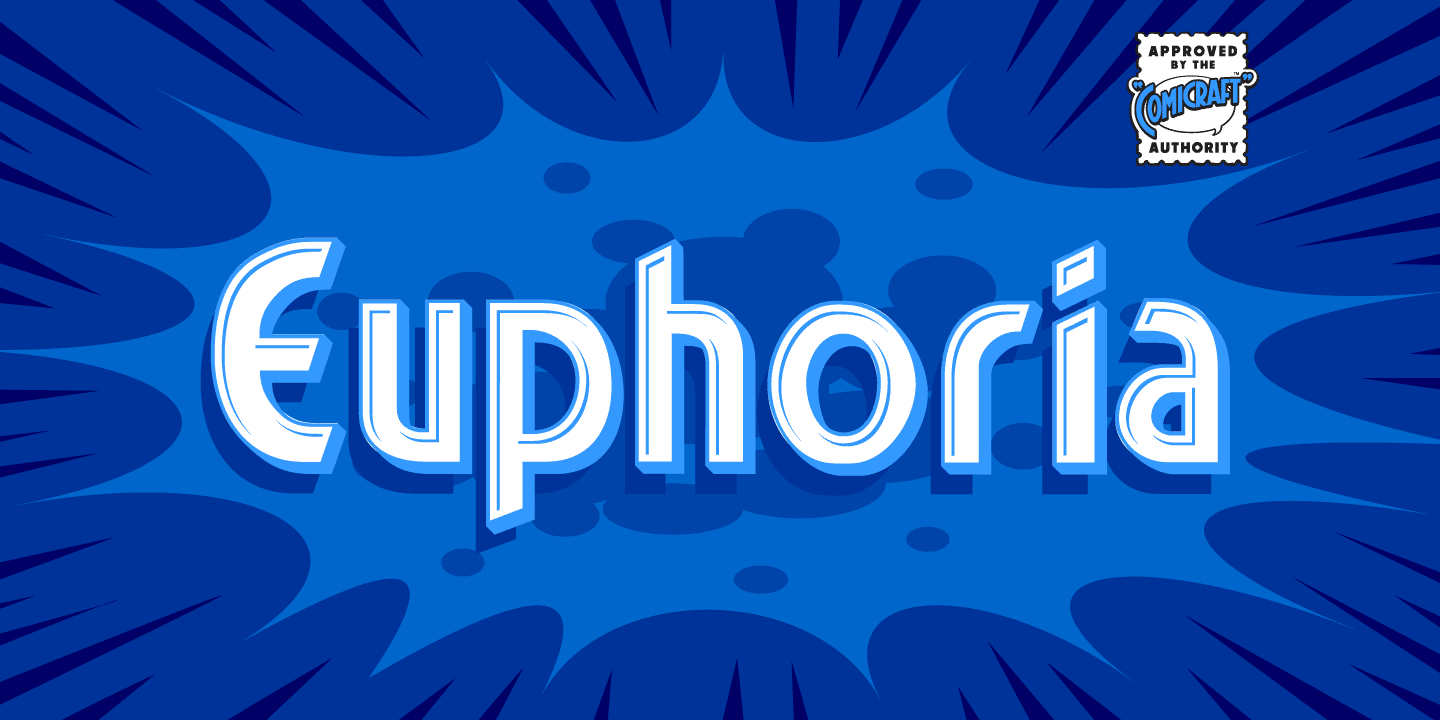
Euphoria Font is perfect for celebration event branding, music festival posters, joyful party invitations, happiness-focused marketing, euphoric dance venues, blissful wellness centers, ecstatic concert graphics, uplifting motivational materials, pure joy campaigns, and exhilarating entertainment promotions.
What makes Euphoria Font exciting is its intoxicating joy and ecstatic energy that captures the essence of pure bliss with overwhelming happiness and transcendent celebration. This exhilarating typeface embodies the spirit of euphoric moments with its soaring character forms and bliss-inspired proportions that evoke dancing crowds at music festivals, spontaneous laughter that echoes through summer nights, and the kind of pure joy that lifts spirits beyond earthly concerns into realms of absolute happiness. The font's euphoric character creates an immediate rush of positive energy and the kind of infectious excitement that spreads like wildfire through crowds.
Euphoria Font family includes regular weight with ecstatically crafted character designs featuring euphoric curves and blissful proportions. The typeface maintains excellent readability while showcasing its distinctive joyful personality through exhilaratingly designed letterforms that seem to vibrate with pure happiness and radiate the kind of infectious energy that makes everyone want to dance and celebrate life.
Event organizers consistently choose Euphoria Font Free Download for projects requiring authentic euphoric appeal and celebration credibility. This remarkable typeface brings the power of pure joy to brand communications, combining ecstatic aesthetics with infectious energy to create unforgettable celebration experiences. The euphorically designed characters ensure maximum happiness impact across all applications, making it essential for entertainment companies, celebration brands, and any organization seeking to communicate the transformative power of pure joy and the transcendent bliss that comes from embracing life's most euphoric moments through Euphoria Font Free Download.